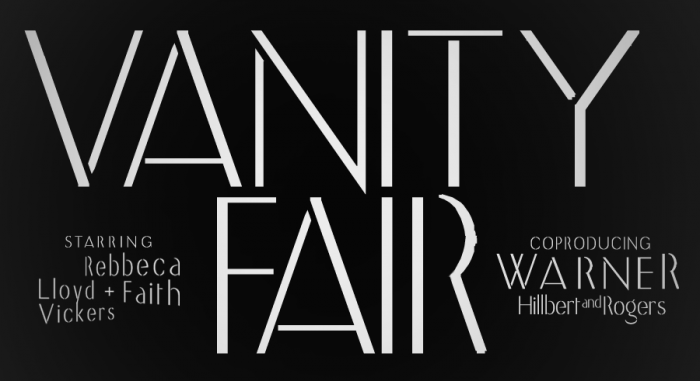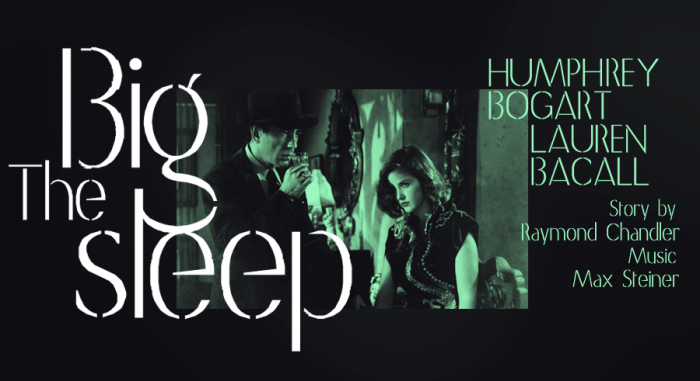
Very stylish. Love it. 10/10+fav
Congratulations! FontStruct Staff have deemed your FontStruction worthy of special mention. “Stanwyck” is now a Top Pick.